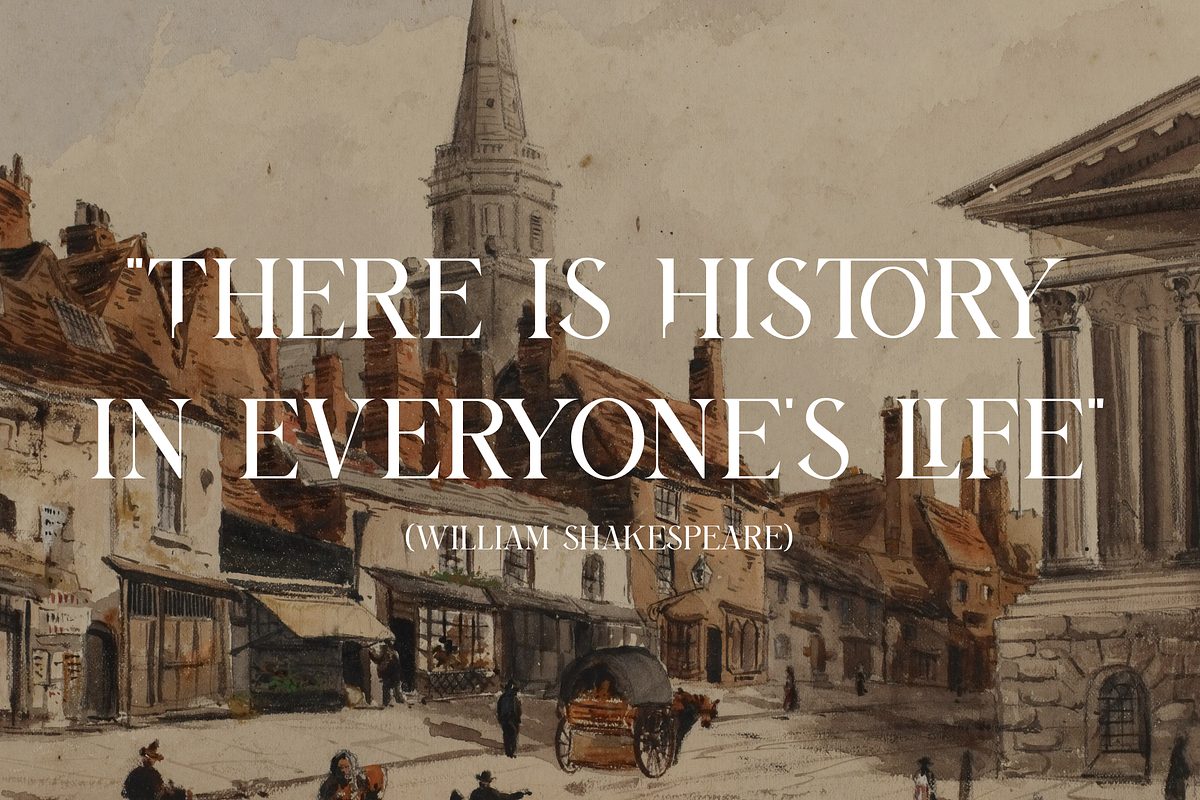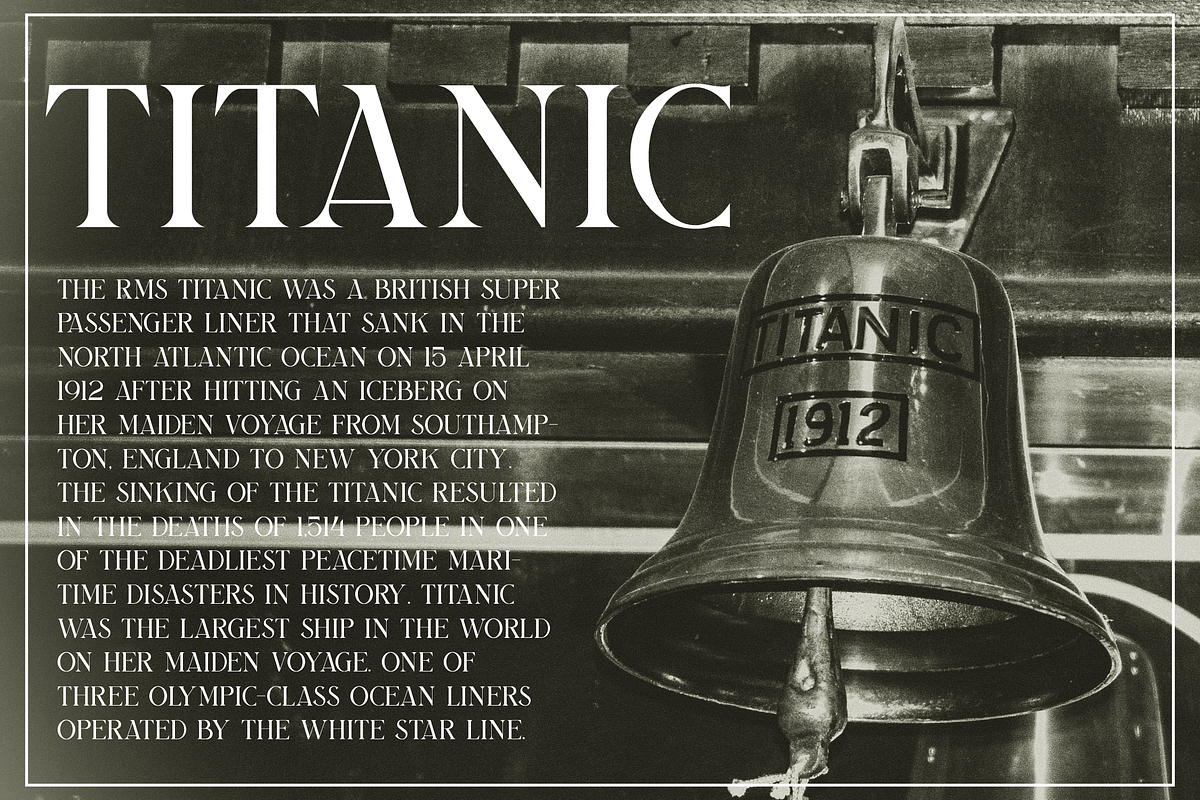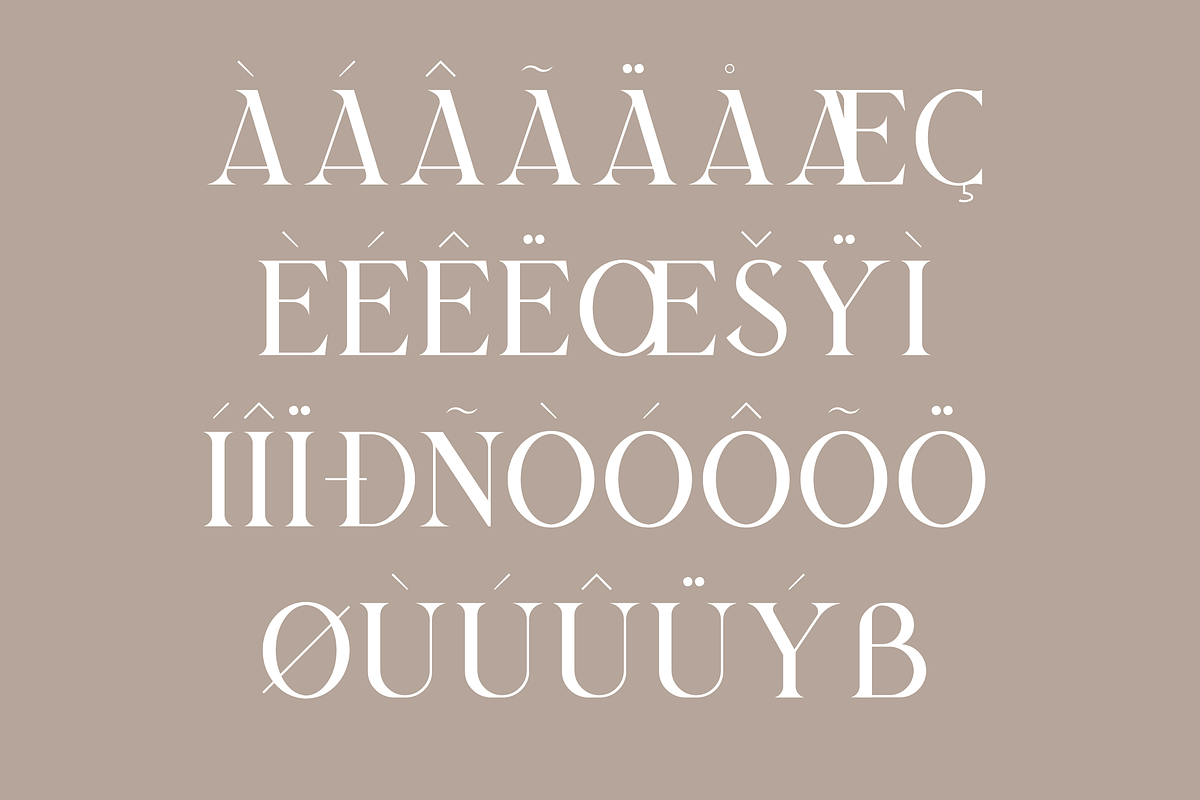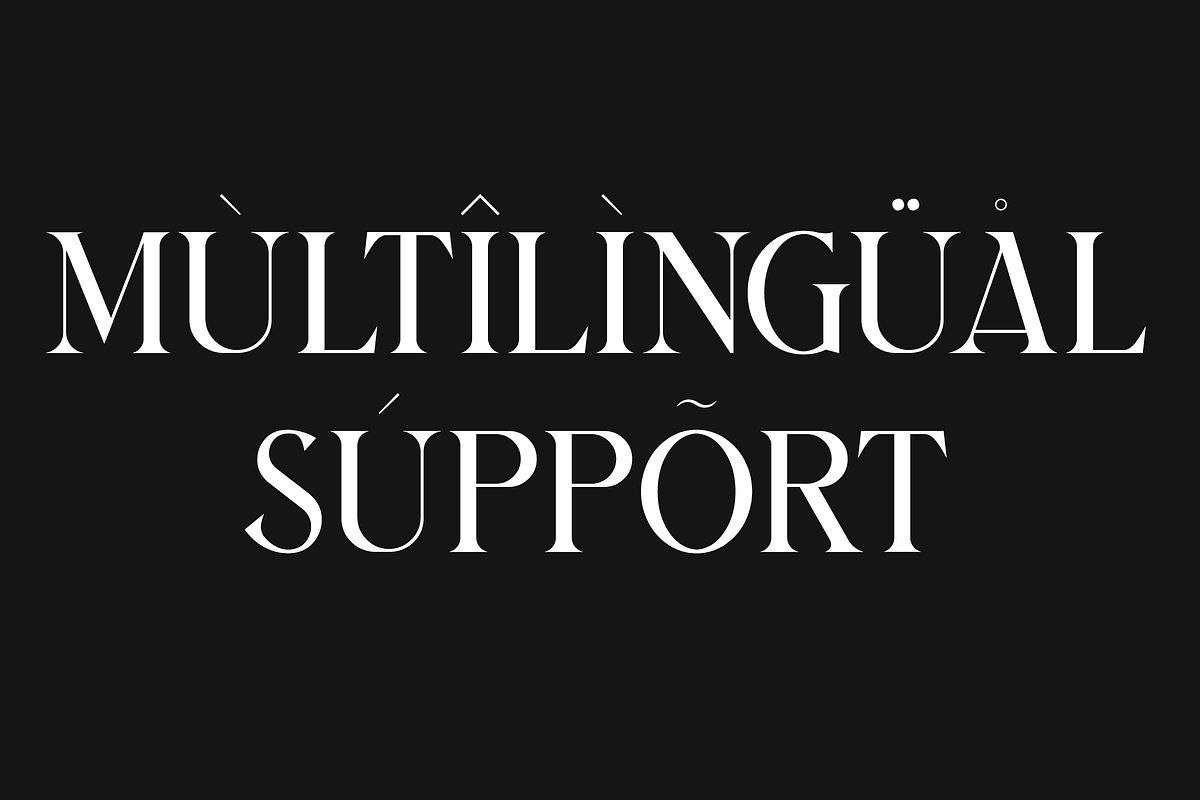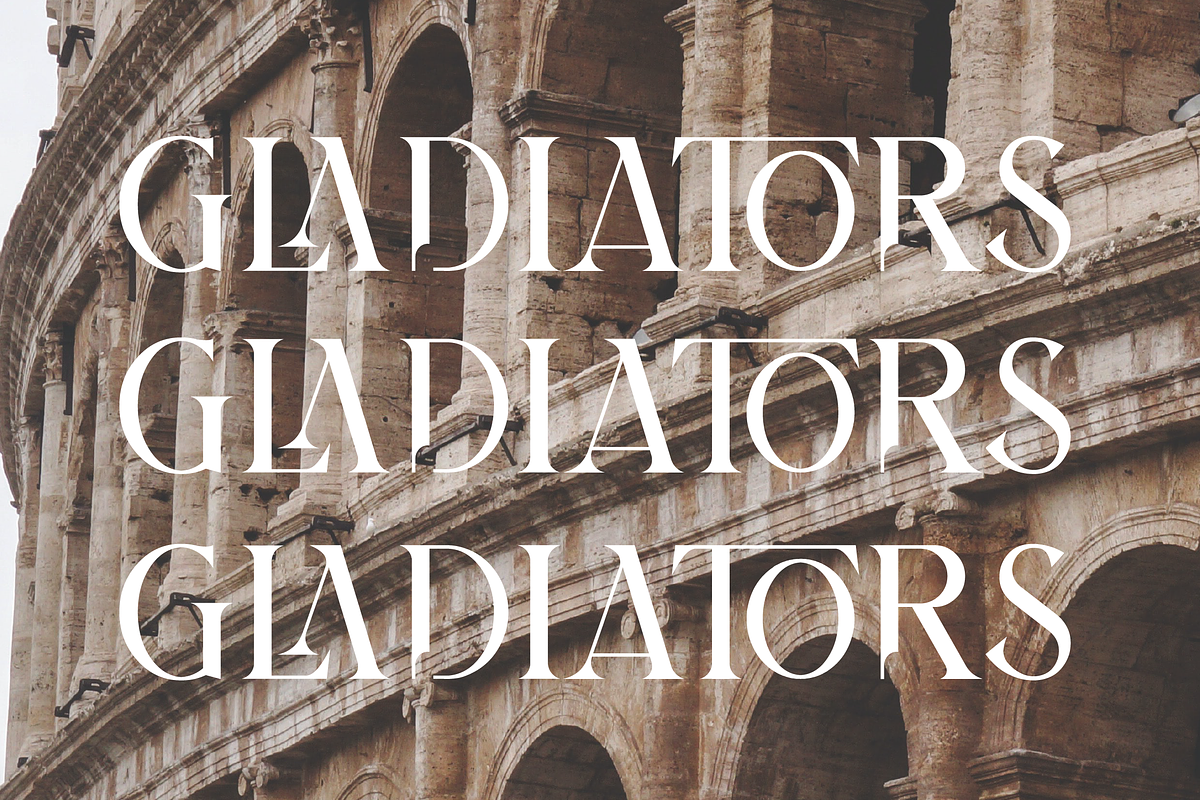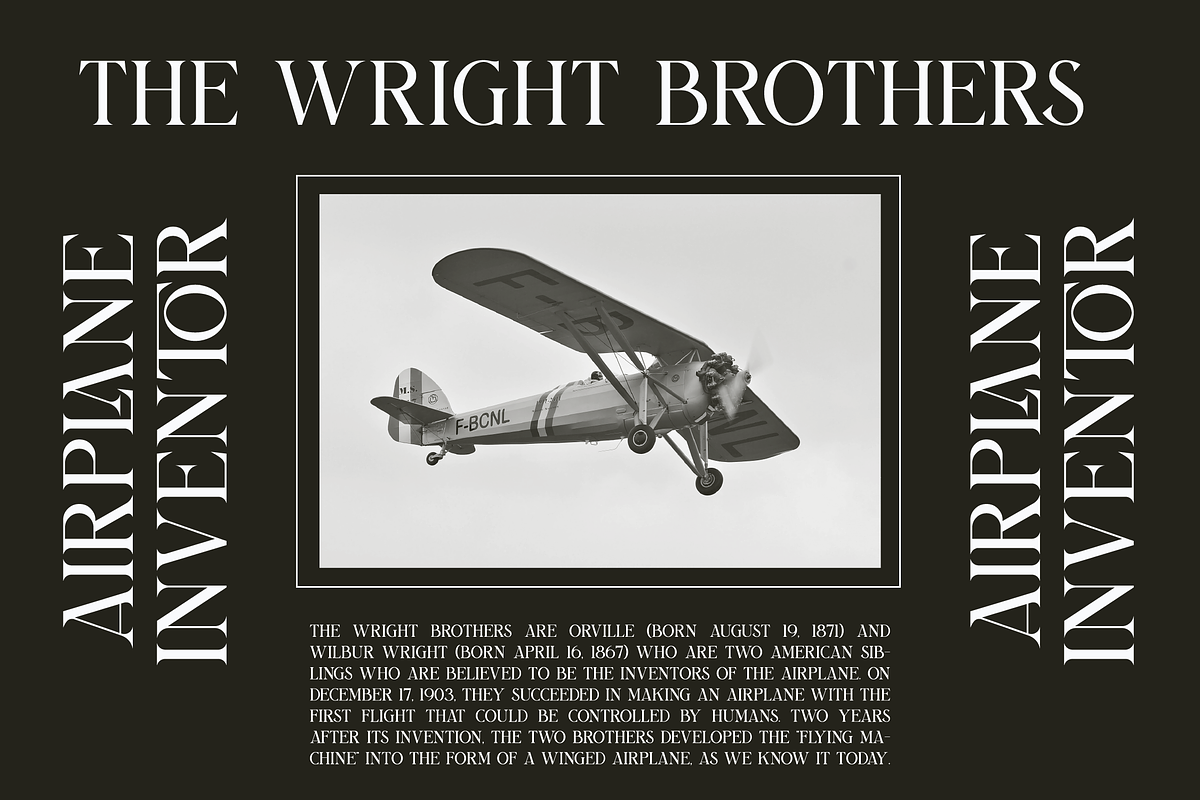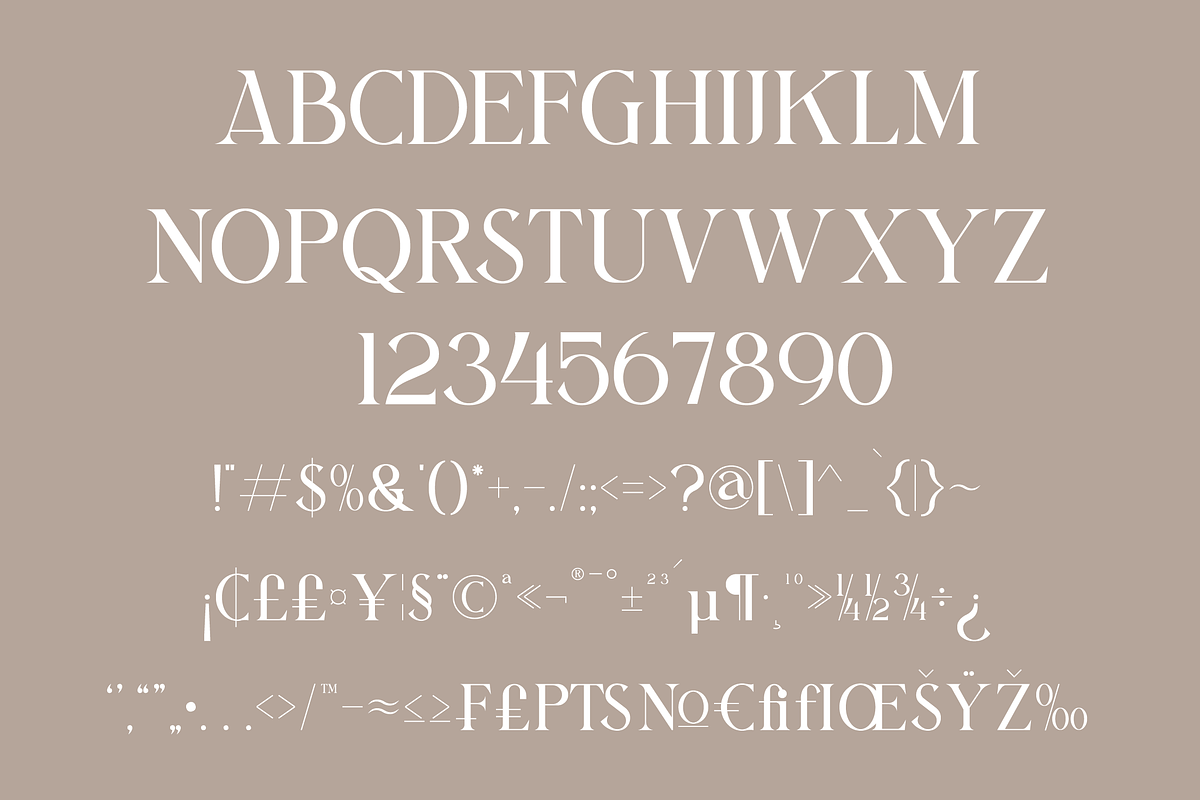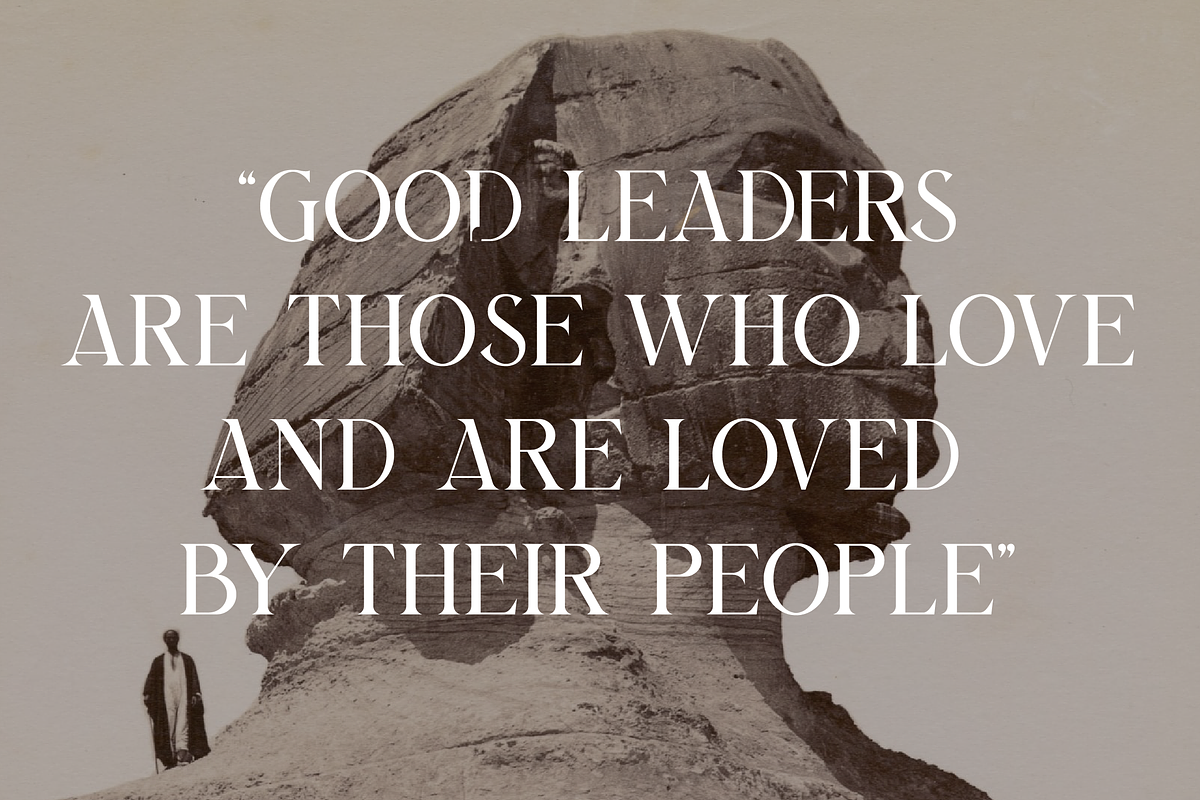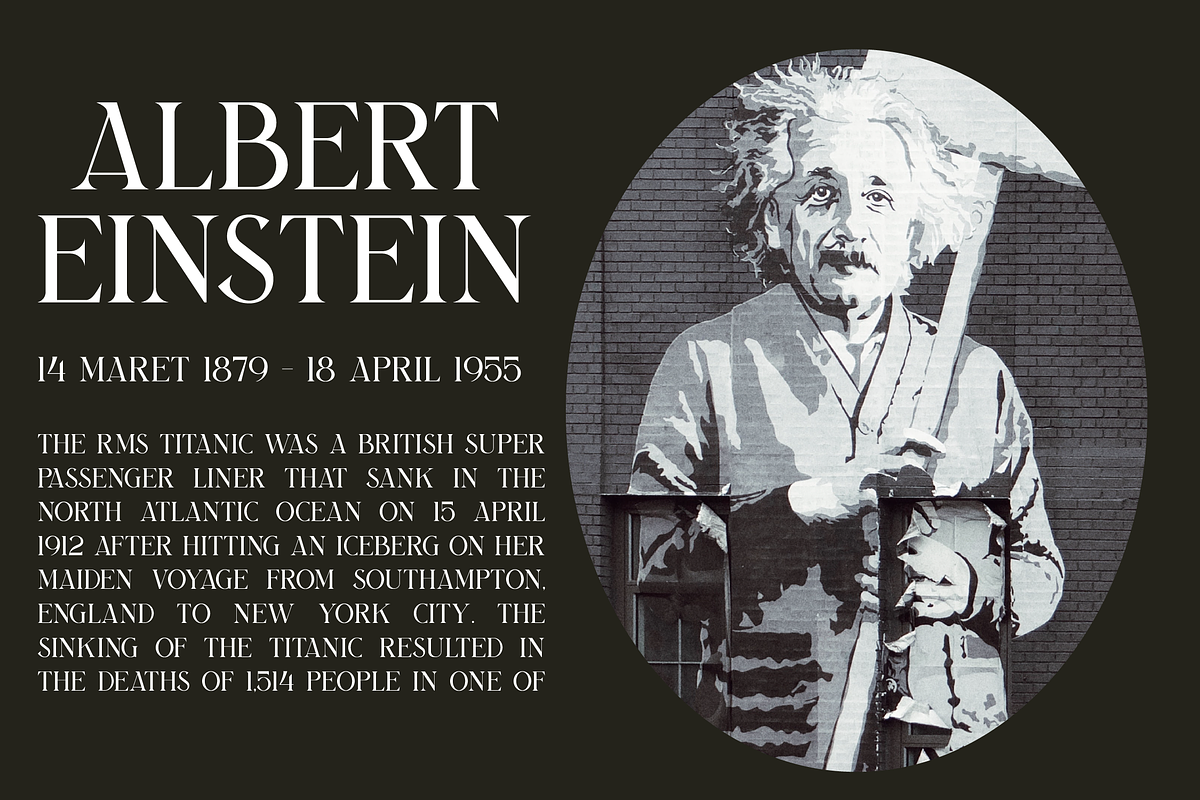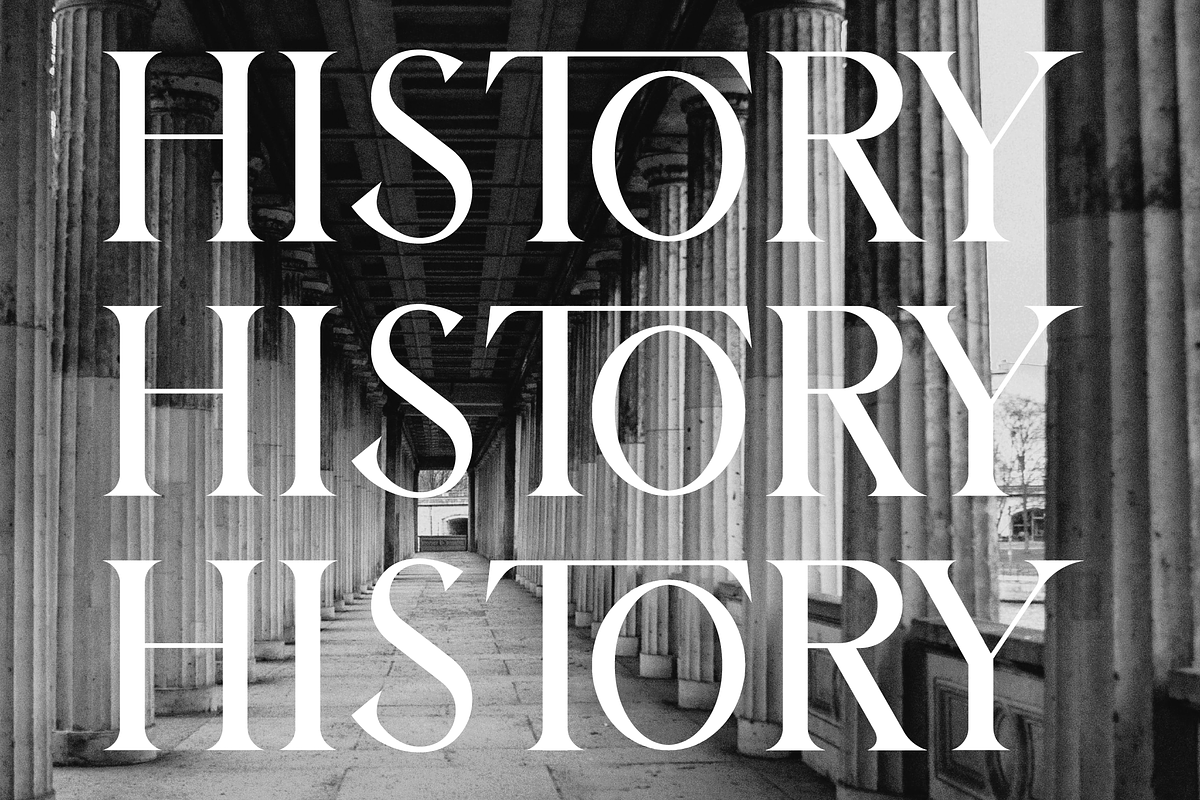
Bilargy Classic Serif Font
We are proud to present the Bilargy Classic Serif Font, created by Maryamtype Studio, a serif typeface that has a unique style & classic look. This typeface is perfect for elegant & luxurious logos, book or movie title designs, fashion brands, magazines, clothing, fonts, quotes and more.